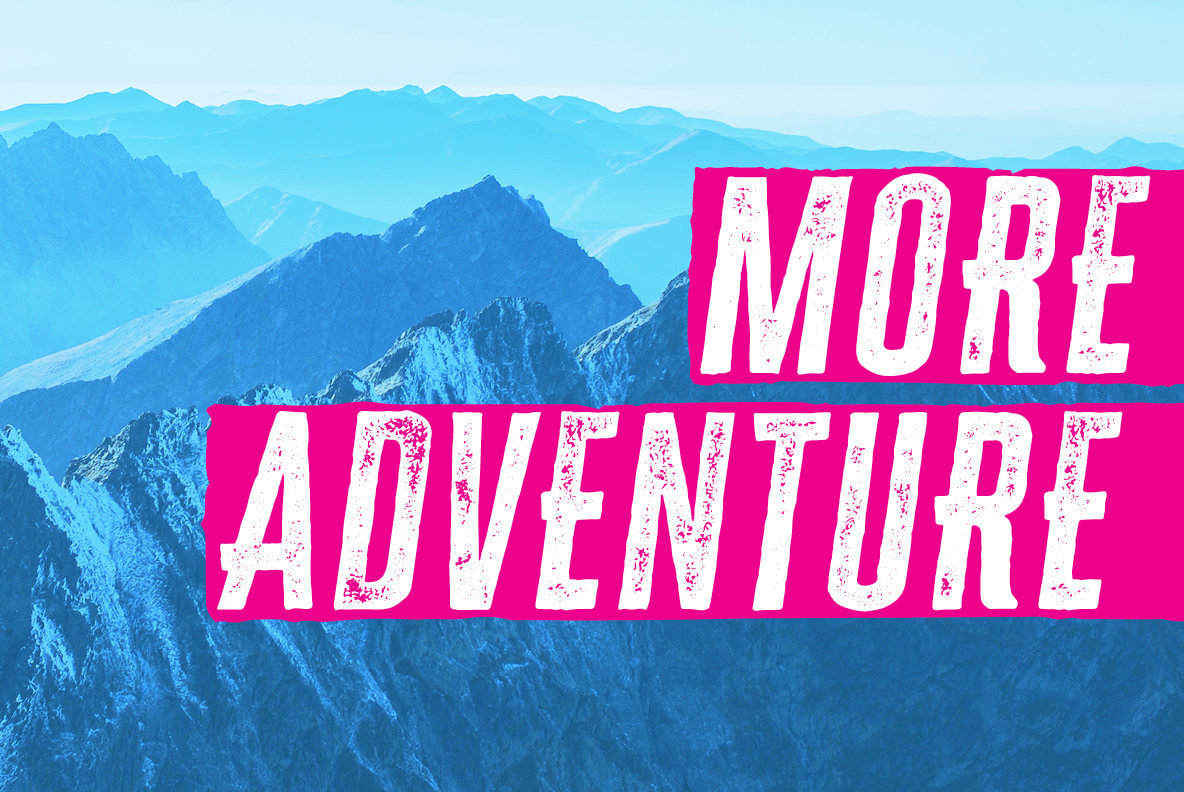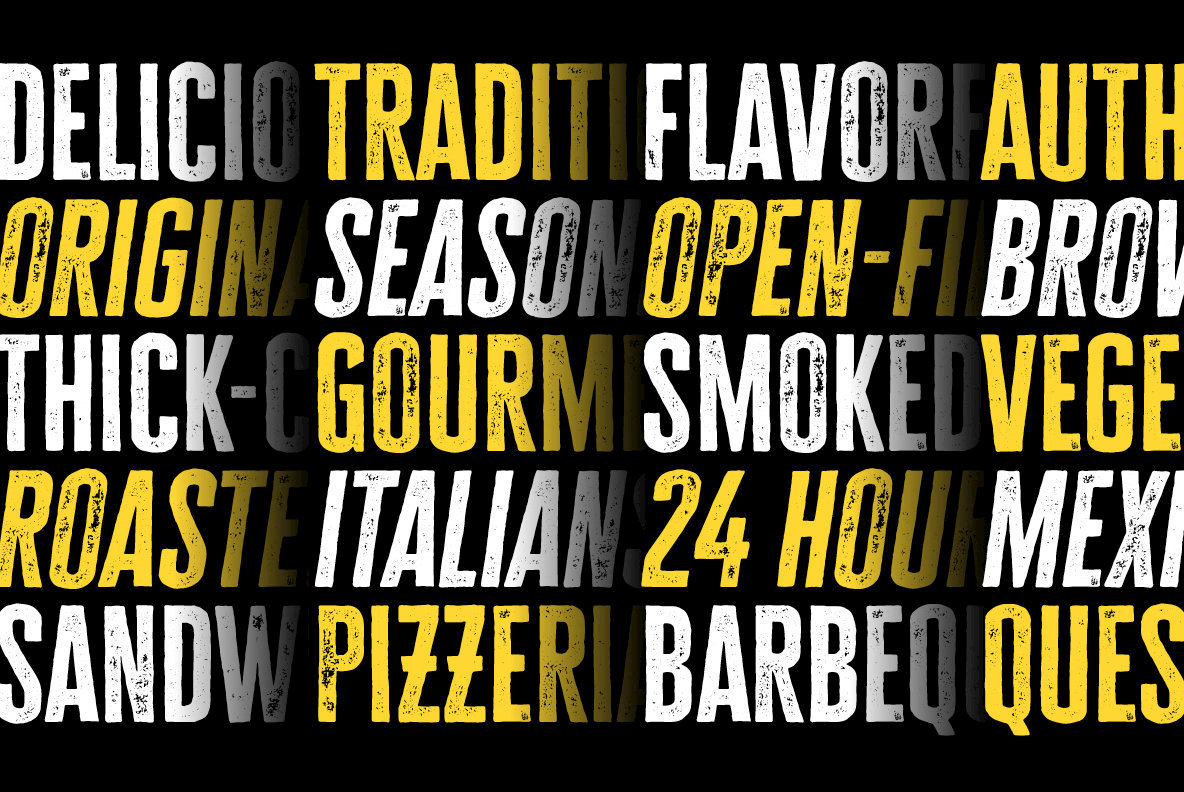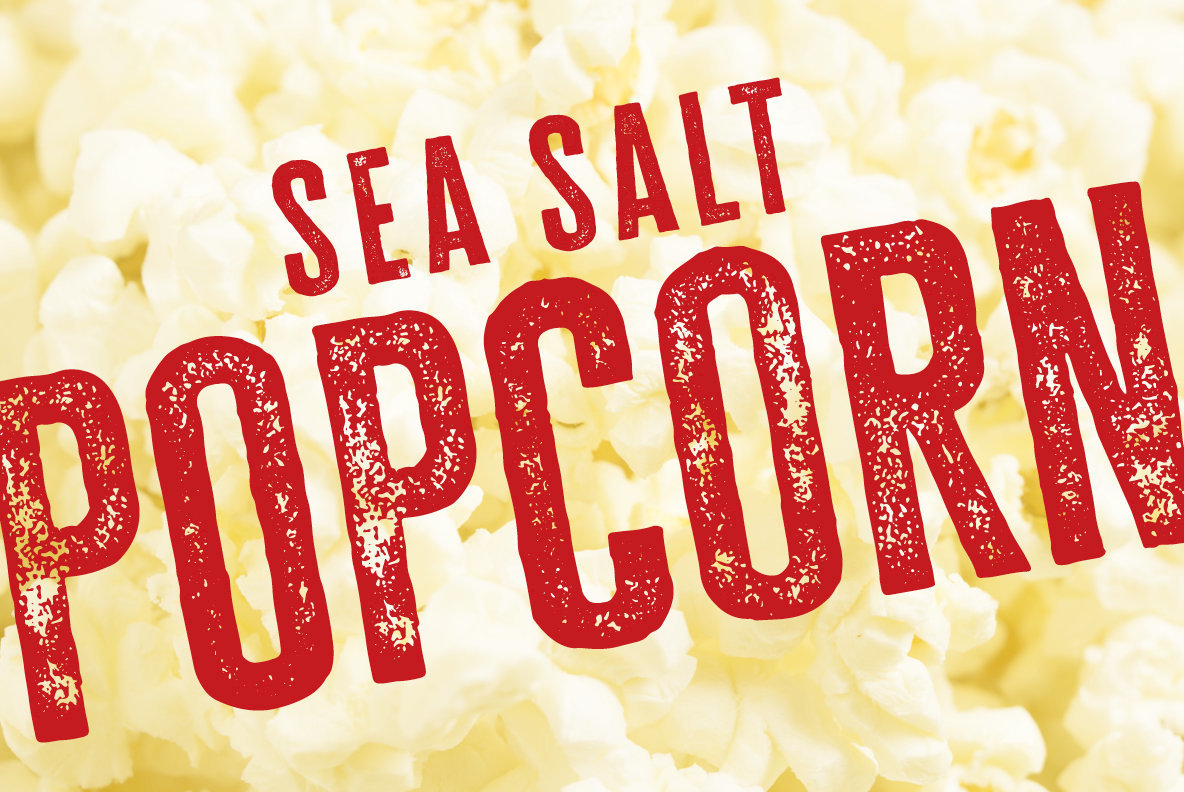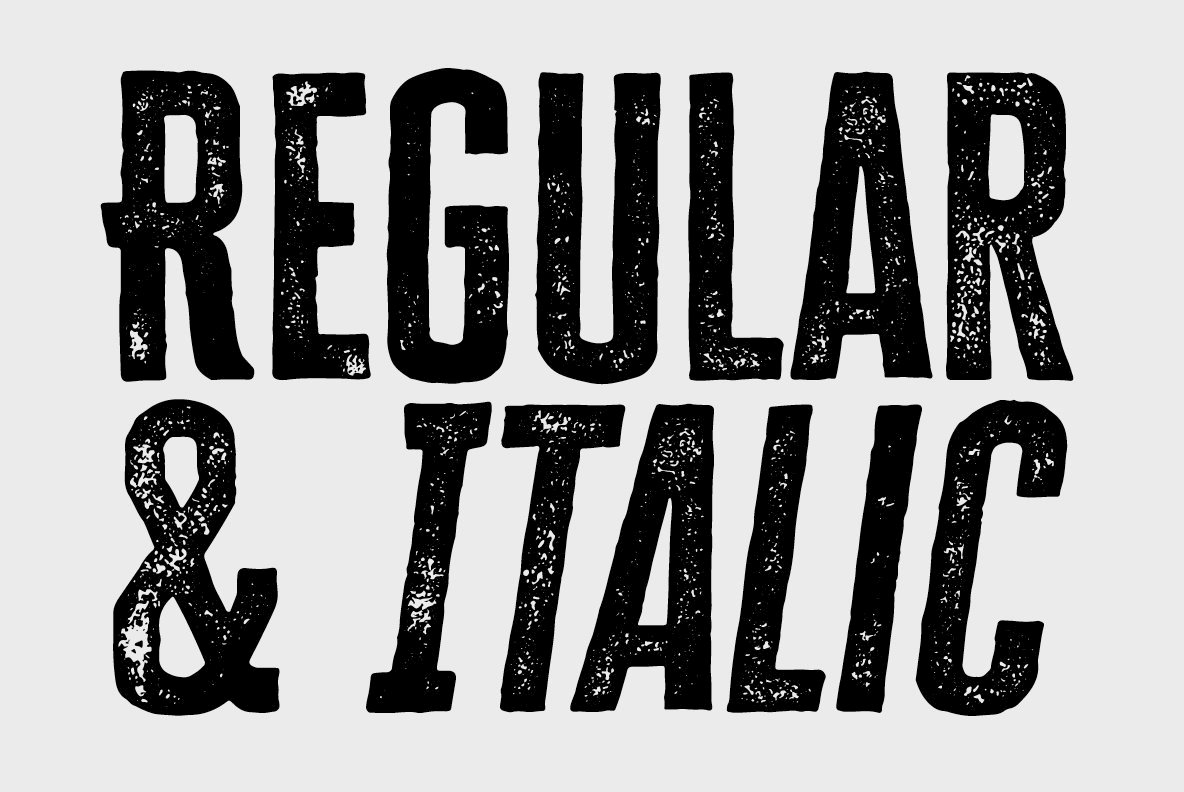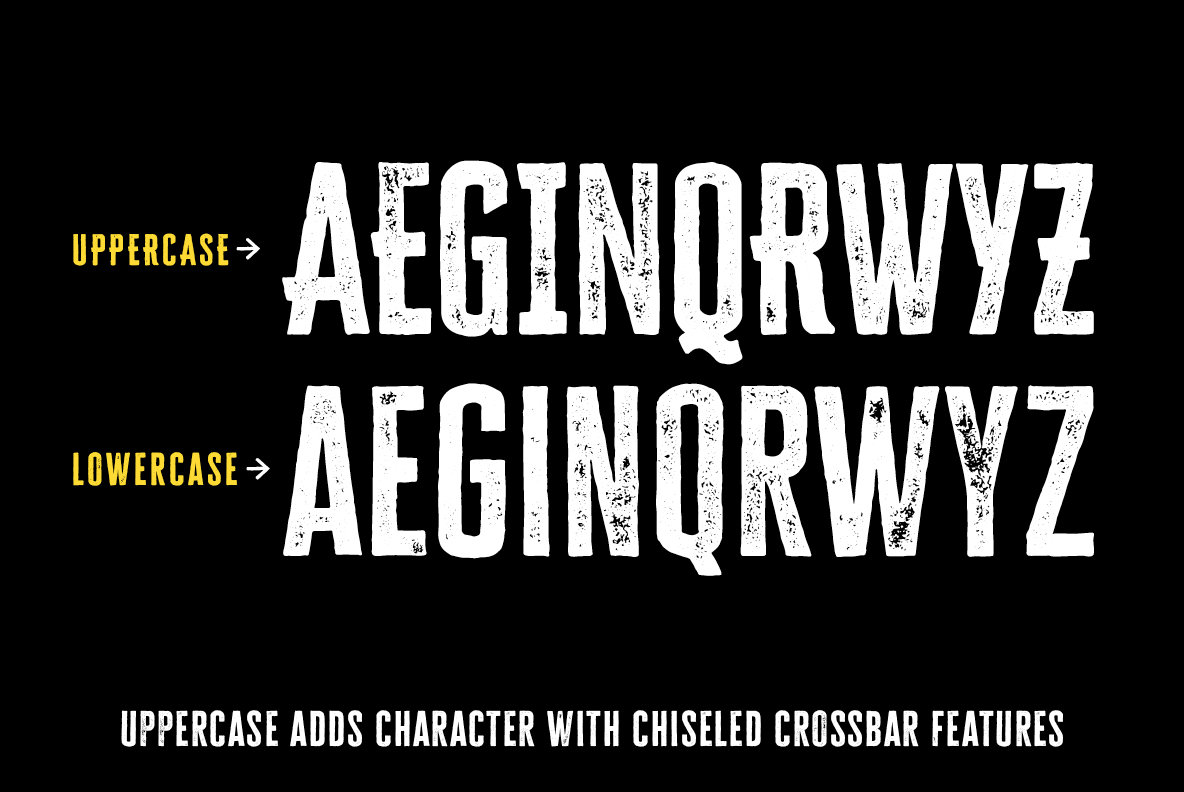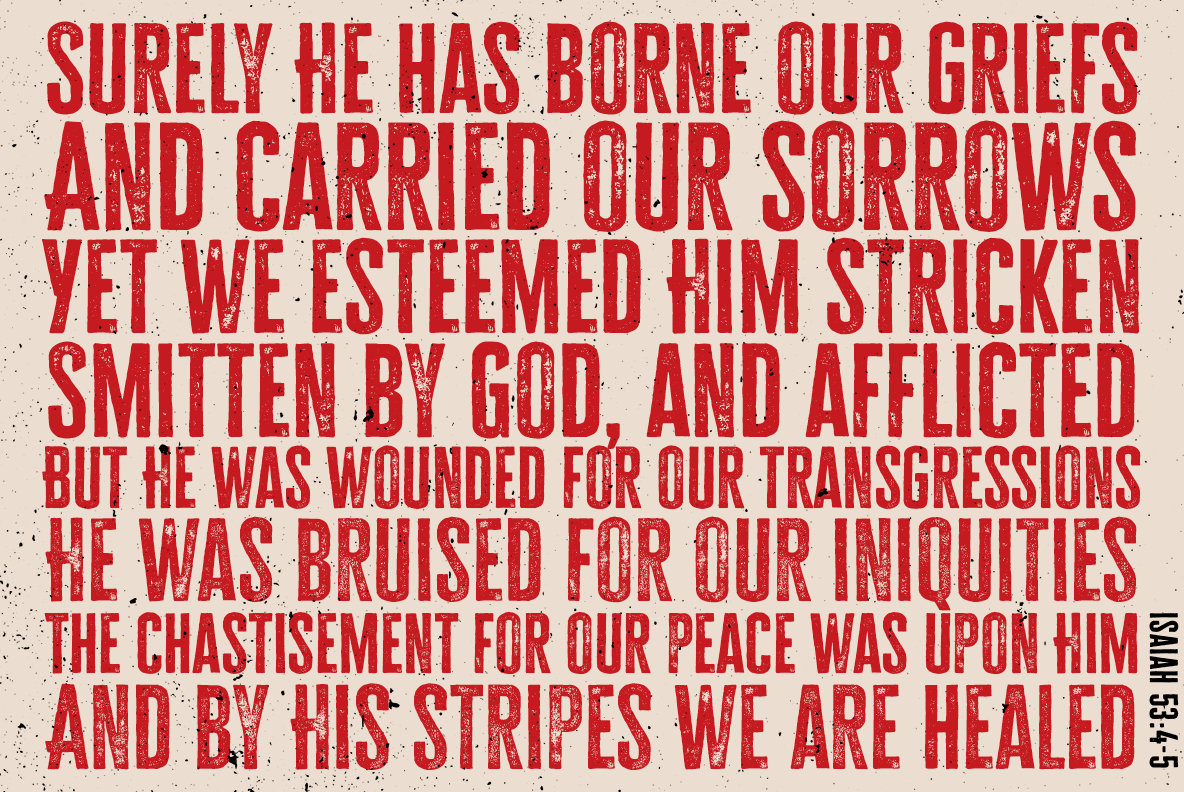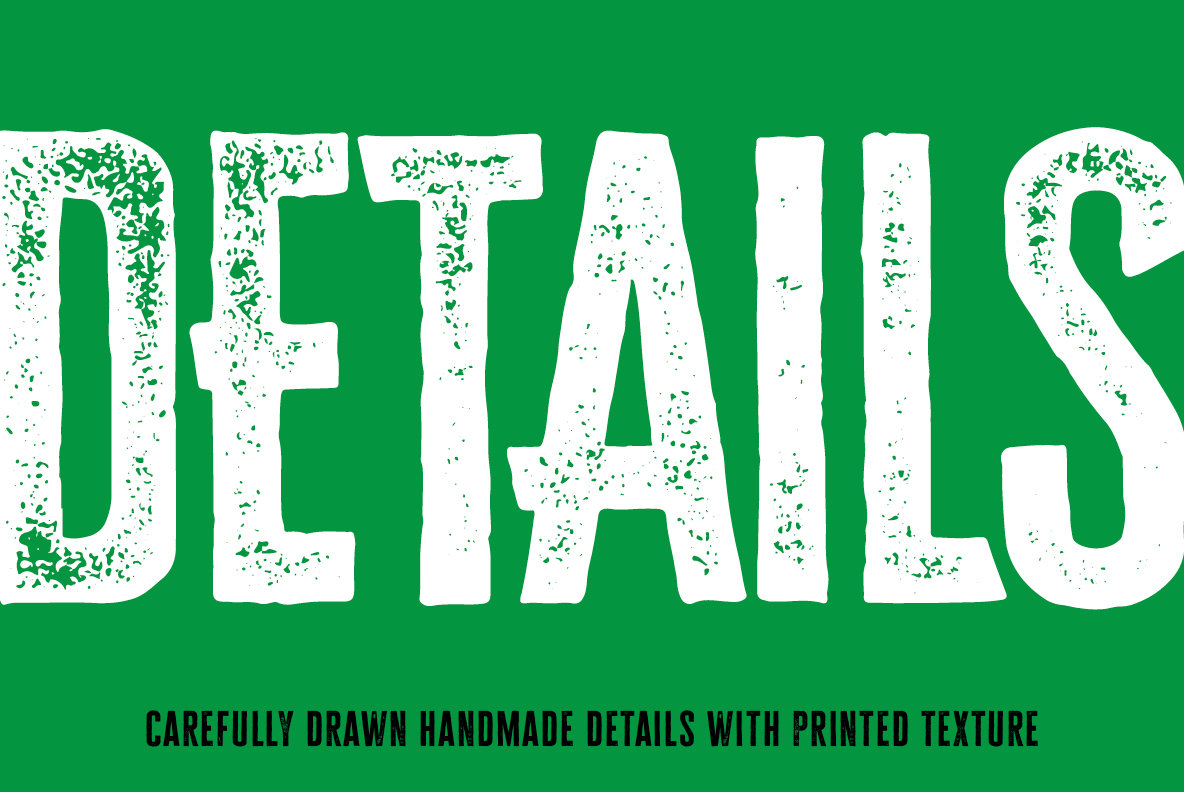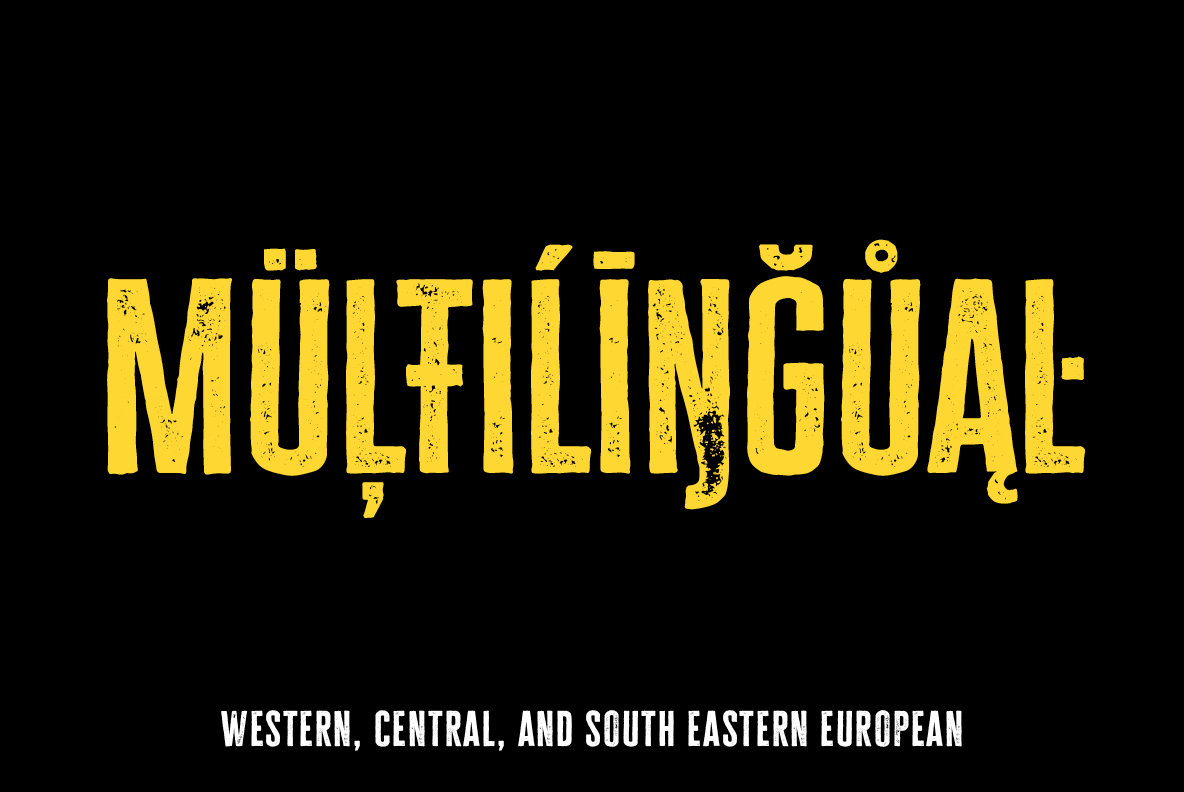
Cheddar Gothic Rough Font
Cheddar Gothic Rough is a hand-drawn, textured display font with regular and italic styles. An all-caps, sans serif typeface with condensed proportions that works great for a variety of display uses. The uppercase characters add distinction with extended crossbars and chiseled terminals, while the lowercase provides a more classic sans serif appearance.
Carefully drawn for quality and readability, but still rough enough to exhibit the handmade details. Cheddar Gothic Rough is great for display, branding, packaging, advertising, food, sports, titles, and more.
This font has extensive Latin language support for Western, Central, and South Eastern European.
This font is the textured version of the Sans family within the larger Cheddar Gothic font family (which includes Sans, Serif, Slab, and Stencil styles).